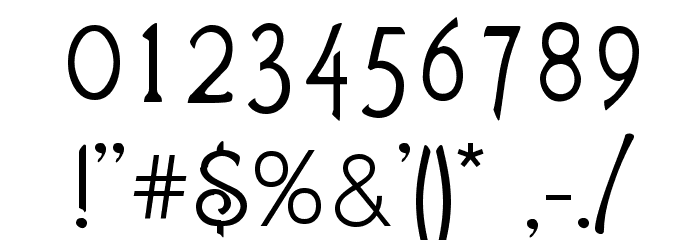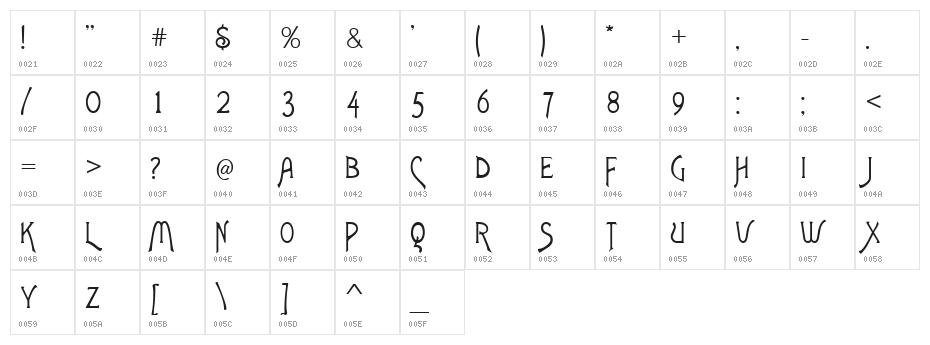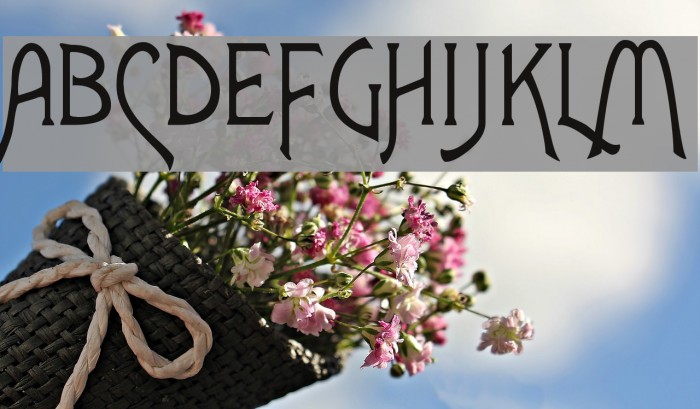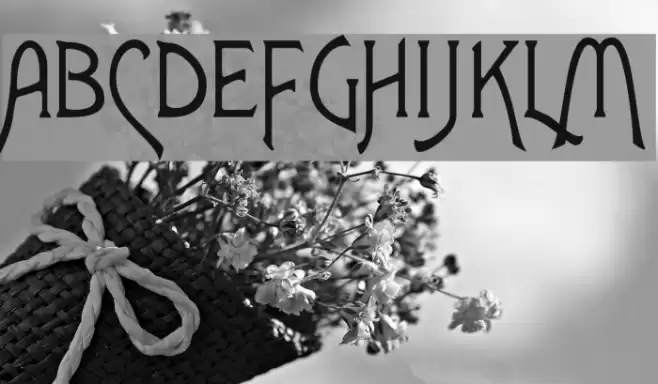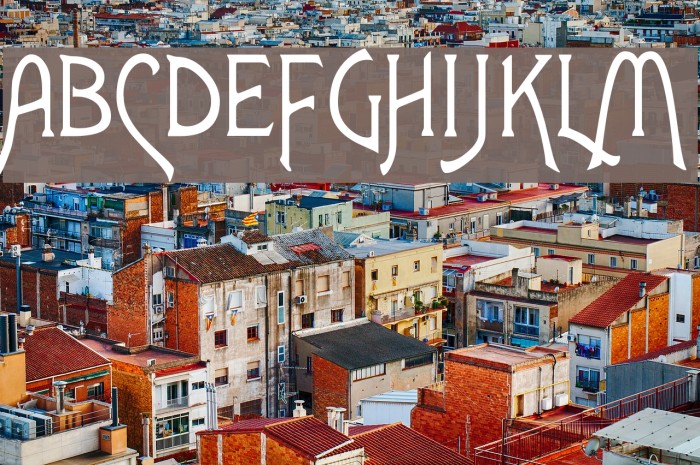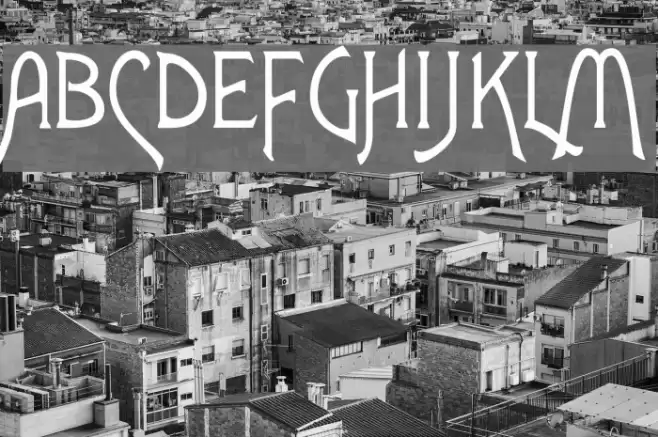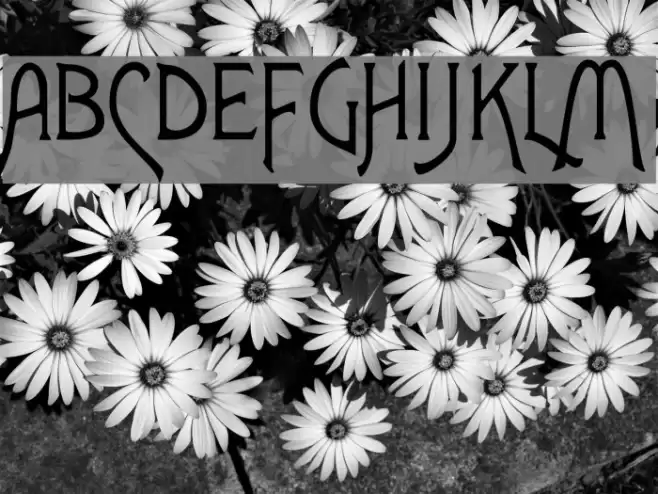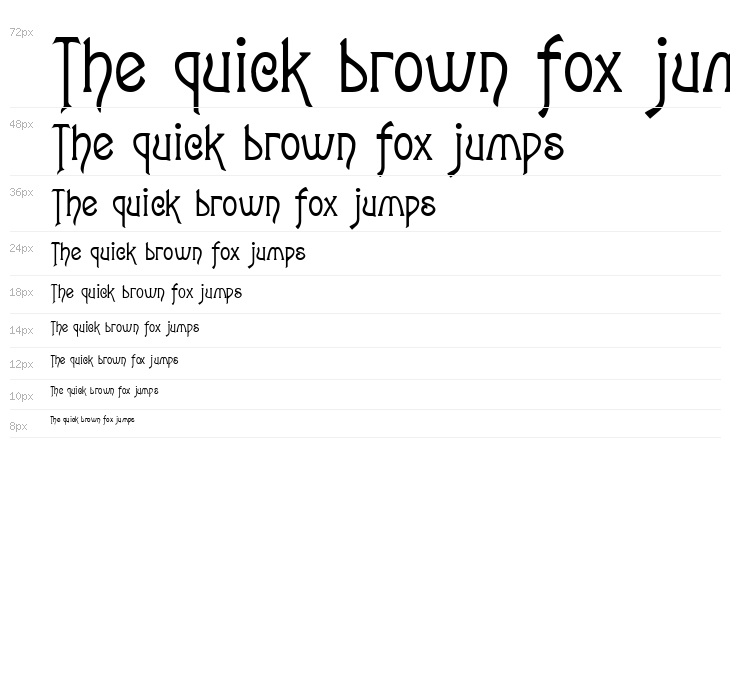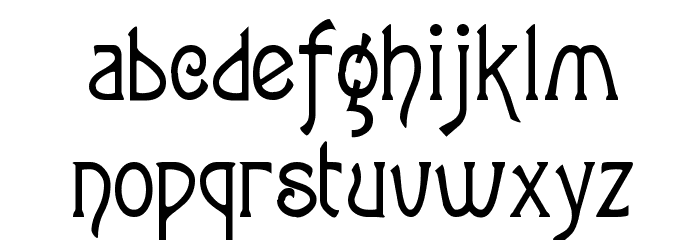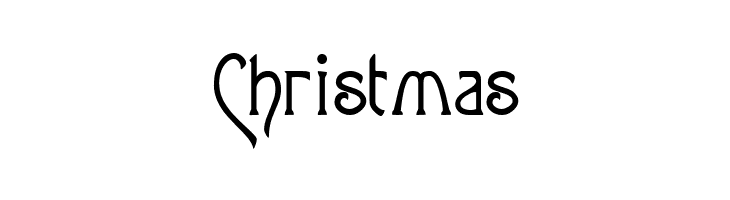
Lansbury Font
Lansbury Description
This font features a unique and artistic style with a blend of sharp angles and smooth curves. The uppercase letters exhibit a tall and narrow form, while the lowercase letters maintain a consistent flow with slight variations in height and width. The numerals are distinct and easily readable, complementing the overall aesthetic. Special characters are creatively designed, adding to the font's decorative appeal. The strokes vary in thickness, providing a moderate contrast that enhances legibility while maintaining an artistic flair.